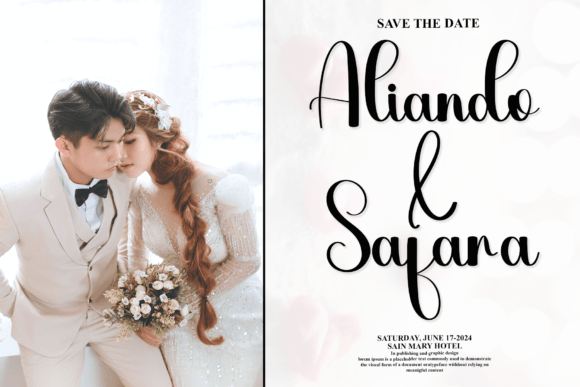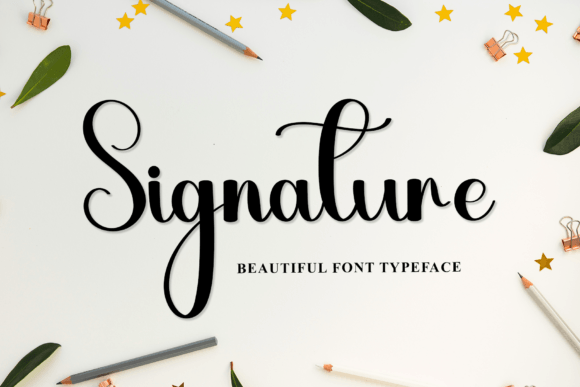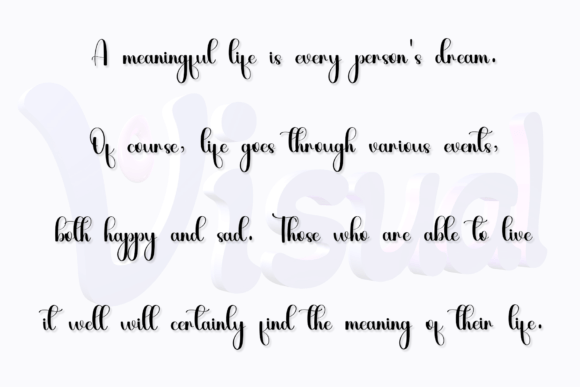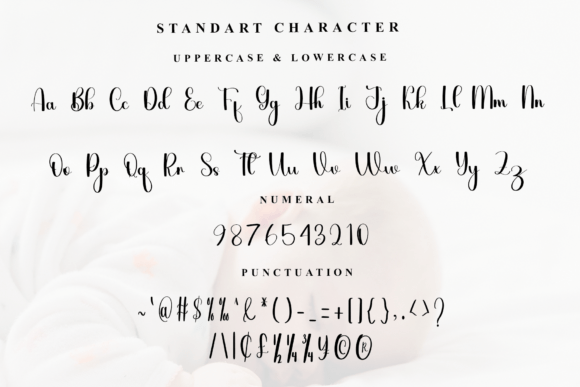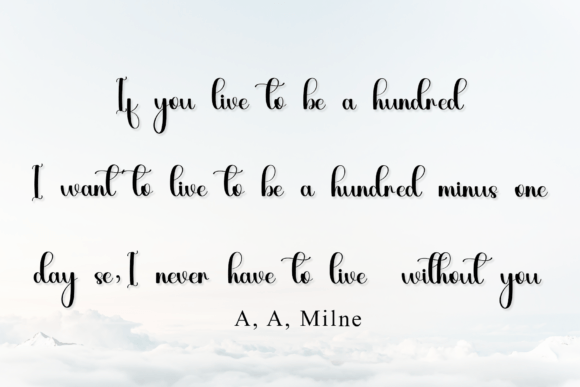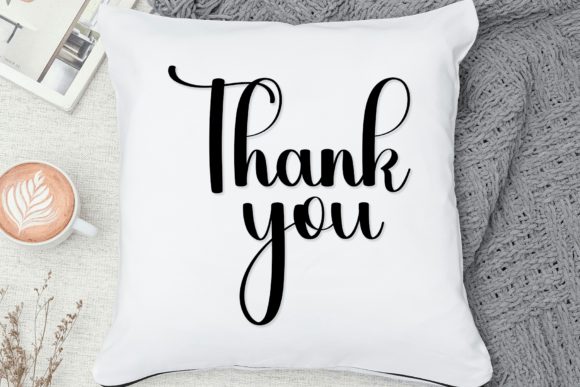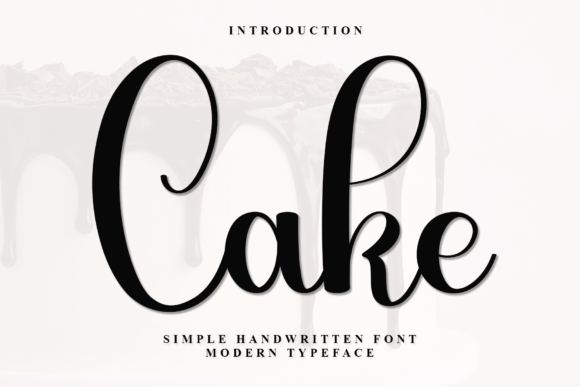
Cake Font: The Sweetest Addition to Your Holiday Designs
The holiday season is upon us, and what better way to get into the spirit than with a festive and fun font? Look no further than the Cake Font, a delightful typeface that’s sure to add a touch of charm to your designs. In this article, we’ll dive into the world of Cake Font, exploring its unique features, uses, and benefits for designers and crafters alike.
A Festive and Happy Typeface
Cake Font is a decorative typeface that’s specifically designed to capture the spirit of the holiday season. With its playful and cheerful vibe, it’s the perfect addition to any design project that requires a touch of festive flair. Whether you’re creating greeting cards, gift labels, or holiday-themed projects, Cake Font is sure to bring a smile to your face and a twinkle to your designs.
Unique Features and Decorative Elements
So, what sets Cake Font apart from other typefaces? For starters, its decorative elements are unlike anything you’ve seen before. With intricate details and a unique flair, Cake Font adds a level of sophistication and elegance to your designs that’s hard to match. Plus, with its PUA (Private Use Area) coding, you can access all the amazing glyphs and ligatures easily, making it a breeze to use and customize.
Cake Font is specifically designed with holiday projects in mind. Whether you’re creating:
- Greeting cards for Christmas, Hanukkah, or other winter holidays
- Gift labels for presents, treats, or other goodies
- Holiday-themed projects, such as party invitations, decorations, or social media graphics
Cake Font is the perfect choice. Its festive and cheerful vibe is sure to add a touch of magic to your designs, making them stand out from the crowd.
So, what are the benefits of using Cake Font for designers and crafters? Here are just a few:
- Ease of use: With PUA coding, you can access all the glyphs and ligatures easily, making it simple to use and customize.
- Unique designs: Cake Font’s decorative elements and unique flair ensure that your designs stand out from the crowd.
- Festive and cheerful: Cake Font’s playful and cheerful vibe is sure to add a touch of magic to your designs.
- Versatility: Use Cake Font for a wide range of projects, from greeting cards to gift labels and holiday-themed projects.
Tips and Tricks for Using Cake Font
Here are a few tips and tricks for getting the most out of Cake Font:
- Experiment with different sizes and colors: Cake Font looks great in a variety of sizes and colors, so don’t be afraid to get creative.
- Mix and match with other fonts: Cake Font pairs well with a range of other fonts, so try mixing and matching to create a unique look.
- Use it for headlines and titles: Cake Font’s decorative elements make it perfect for headlines and titles, adding a touch of festive flair to your designs.
In conclusion, Cake Font is a delightful typeface that’s sure to add a touch of charm to your holiday designs. With its decorative elements, unique flair, and PUA coding, it’s the perfect choice for designers and crafters looking to create festive and cheerful projects. Whether you’re creating greeting cards, gift labels, or holiday-themed projects, Cake Font is sure to bring a smile to your face and a twinkle to your designs.